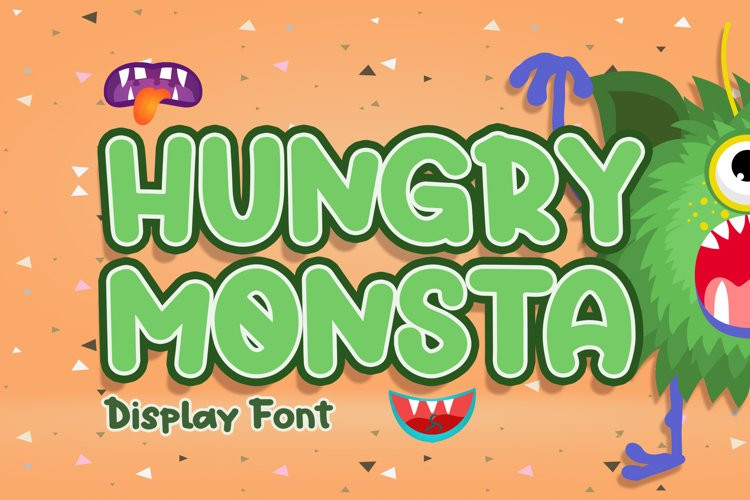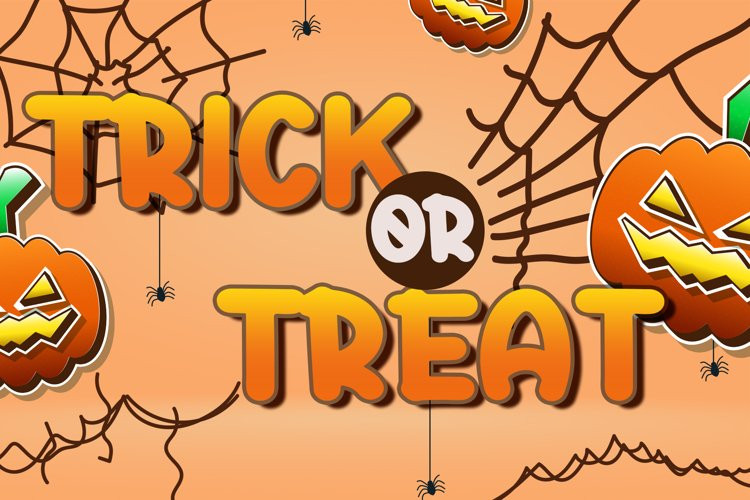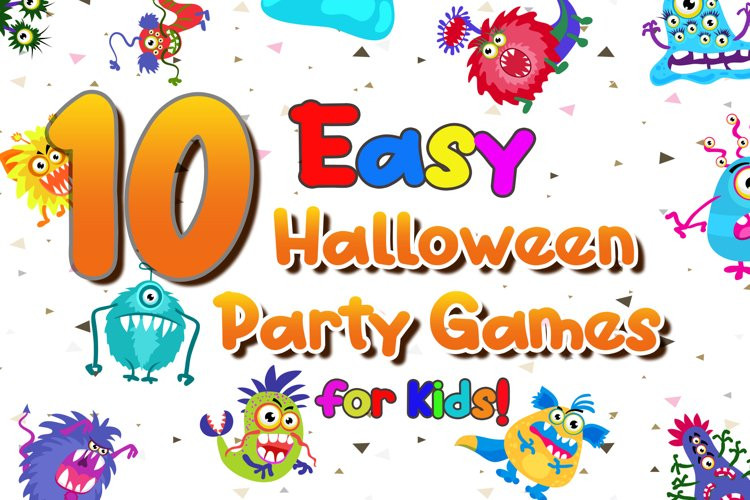
Hungry Monsta Font
Hungry Monsta FontHungry Monsta is a cute and cartoon-like display font. It embodies playfulness and authenticity and is the perfect choice for any children activity or school project.